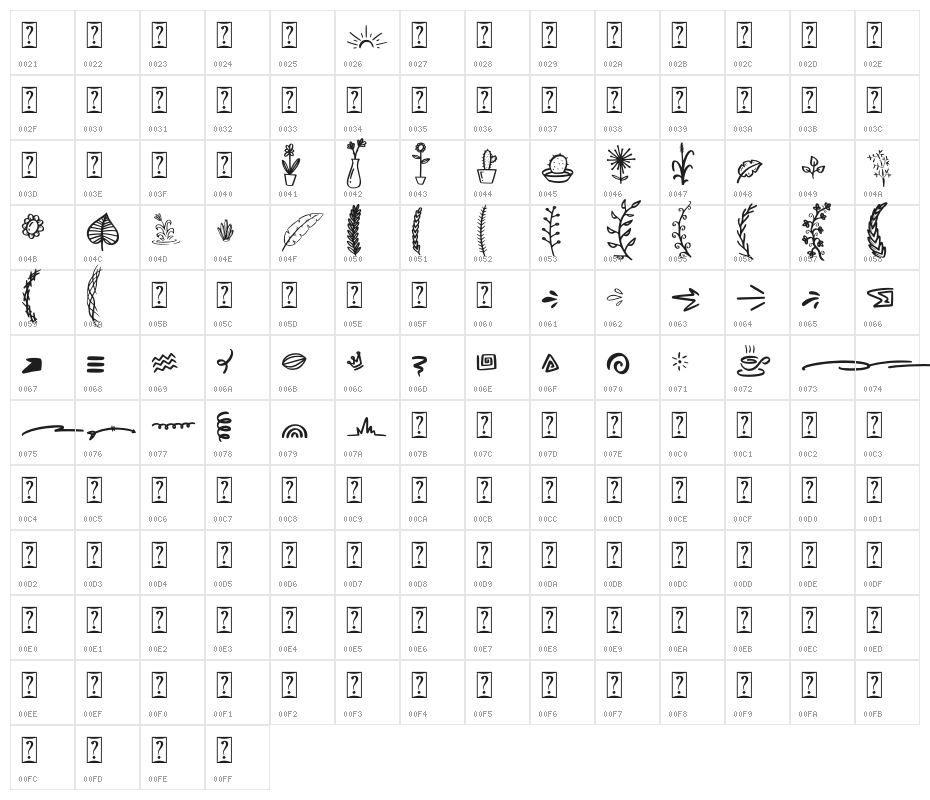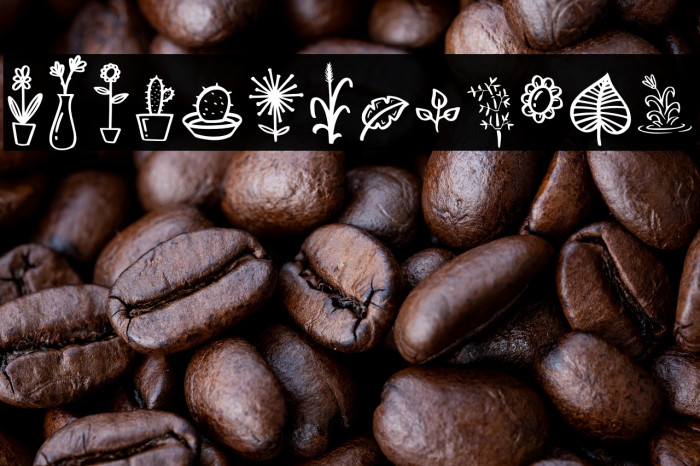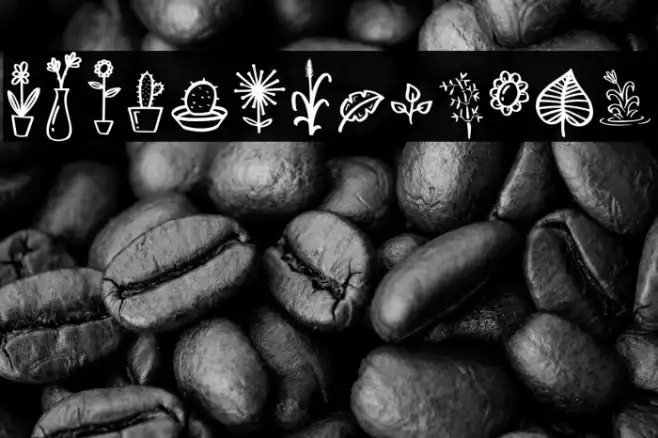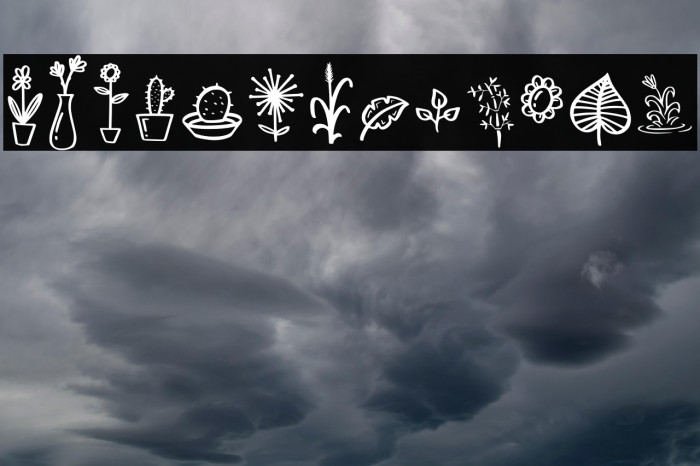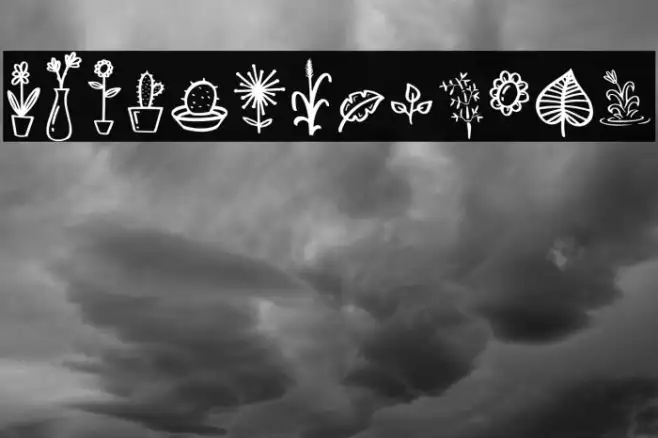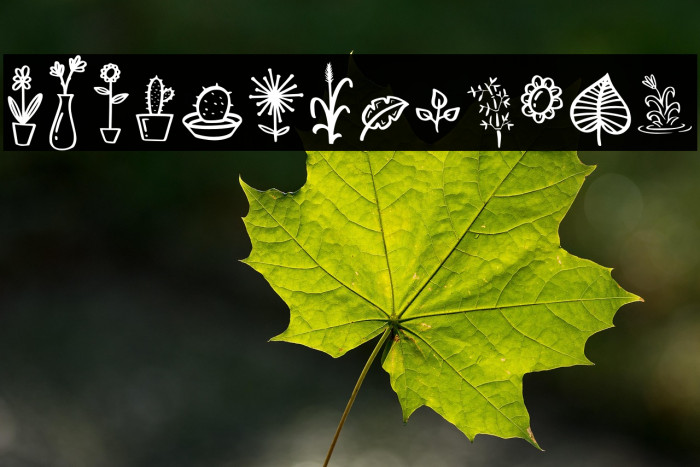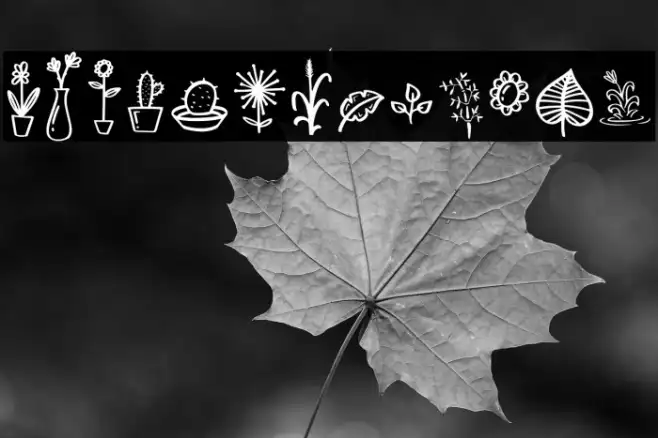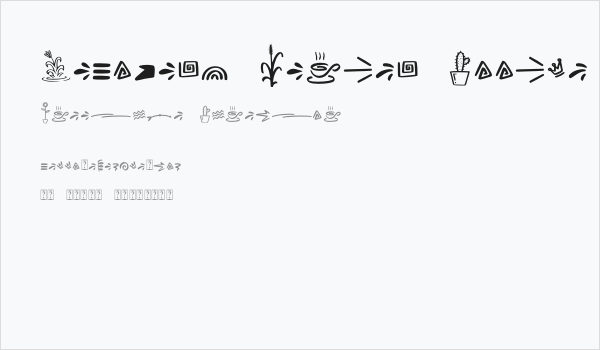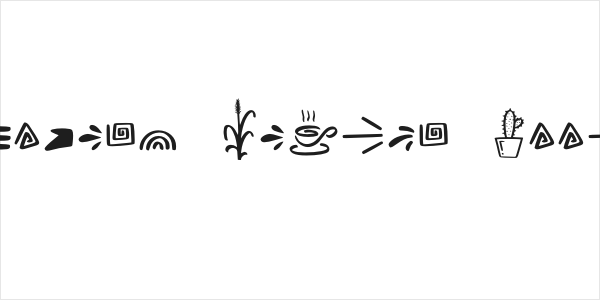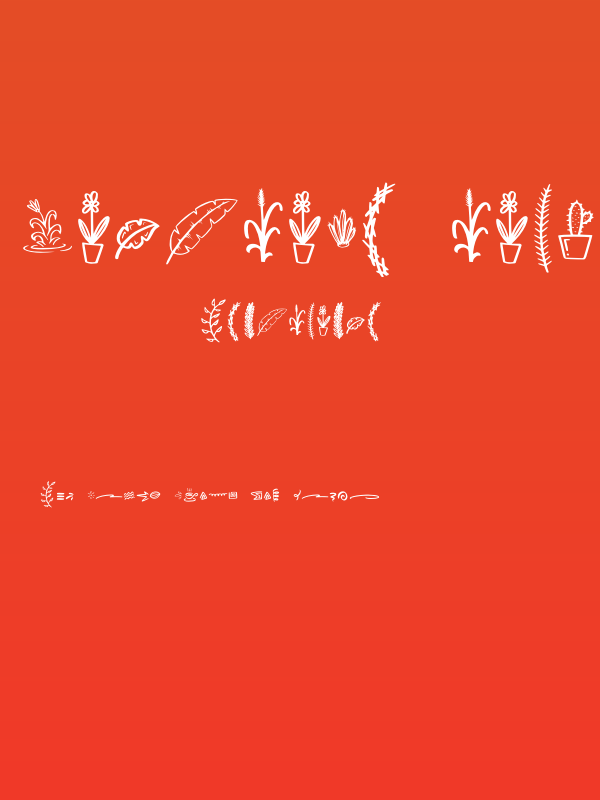
Mahogany Garden Doodle Font
Mahogany Garden Doodle Description
A whimsical, hand-drawn dingbat font featuring garden-themed doodles such as flowers, leaves, plants, arrows, borders, and playful decorative elements. The style is informal and sketch-like, with varying line thickness and a lively, organic feel.
| Overall Style | Decorative, Whimsical, Hand-drawn |
| Use Case | Decorative elements, Borders, Icons, Themed graphics |
| Proposed Projects | ChildrenΓ’β¬β’s books, gardening blogs, scrapbooking, invitations, greeting cards, decorative borders, playful branding. |